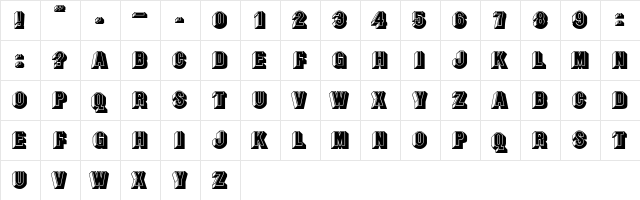
BangstonfatsPlain-Normal Regular
BangstonfatsPlain-Normal is a composed and adaptable typeface that performs quietly and consistently across a wide range of design contexts.